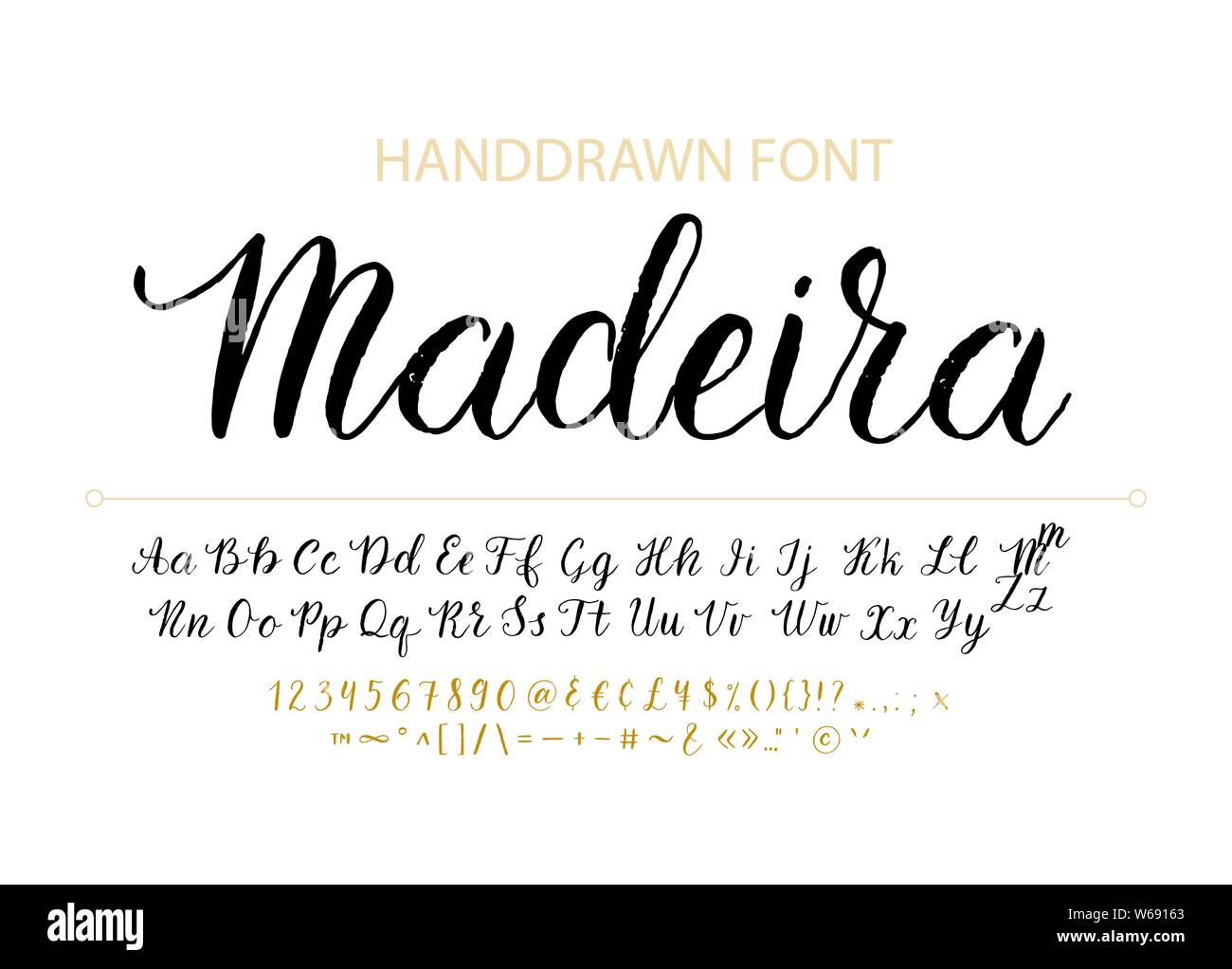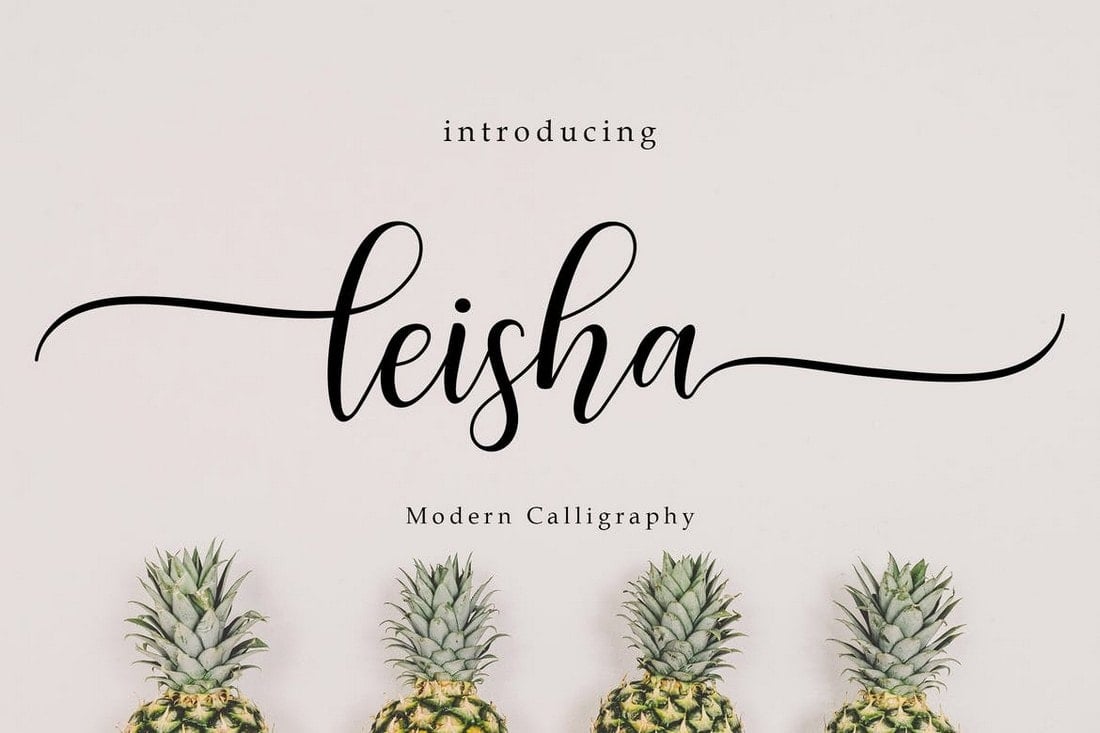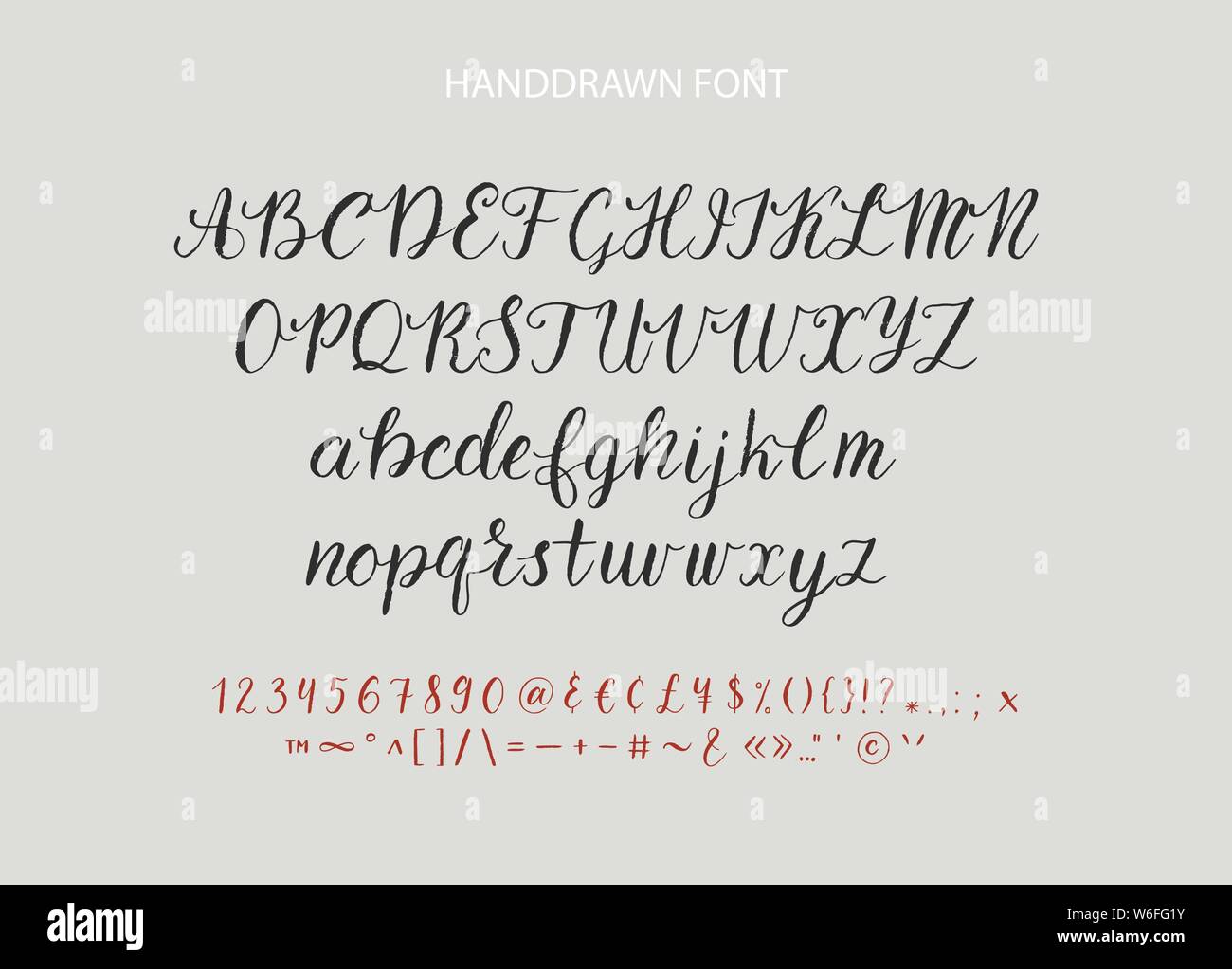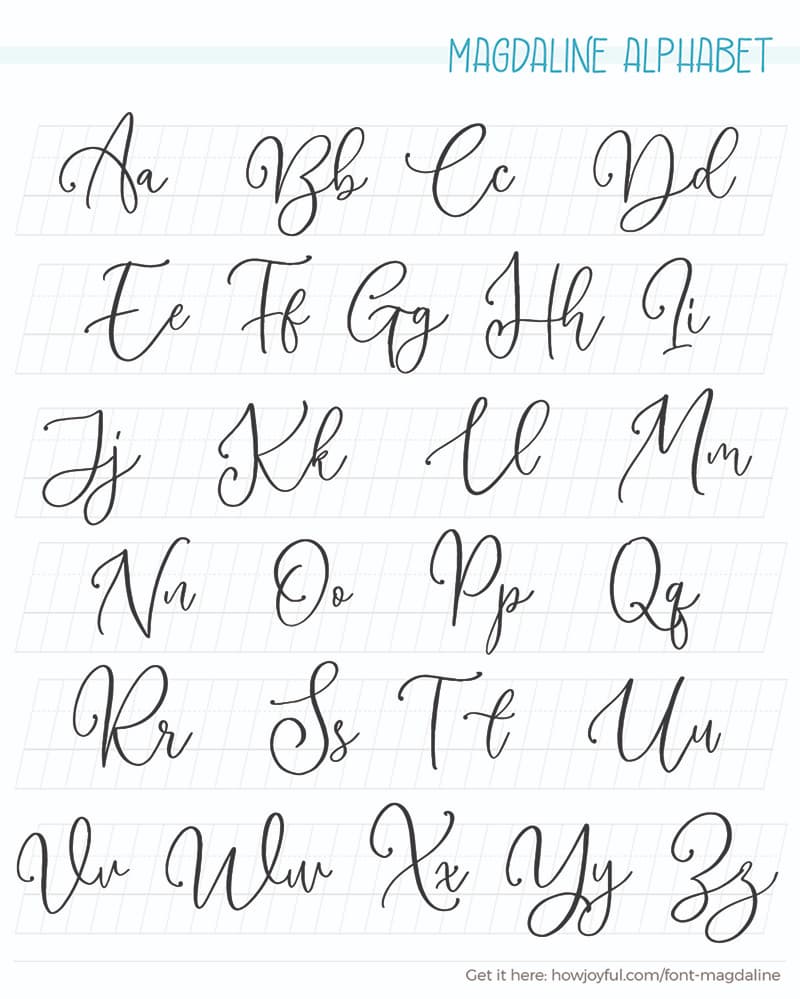
Hand lettering fonts are made to mimic the style of handwritten text. Cursive font is a type of font which was first used back in the fifth century.
Looking for Cursive Hand Drawn fonts. Letters may be joined or unjoined. Cursive also known as joint writing or running writing or handwriting is any style of penmanship in which the symbols of the language are written in a conjoined andor flowing manner generally for the purpose of making writing faster.
For more artistic styles you will want to look at calligraphy or hand-lettering. Writing fonts include both printing and cursive styles and is less artistic than formal calligraphy. Standard represents the customary cursive italic Joins 1-8.
Cursive fonts mimic the style of human penmanship where the letters flow together. Italic handwriting provides many join options. They transform a simple letter into something extraordinary a bland product description into something exciting.